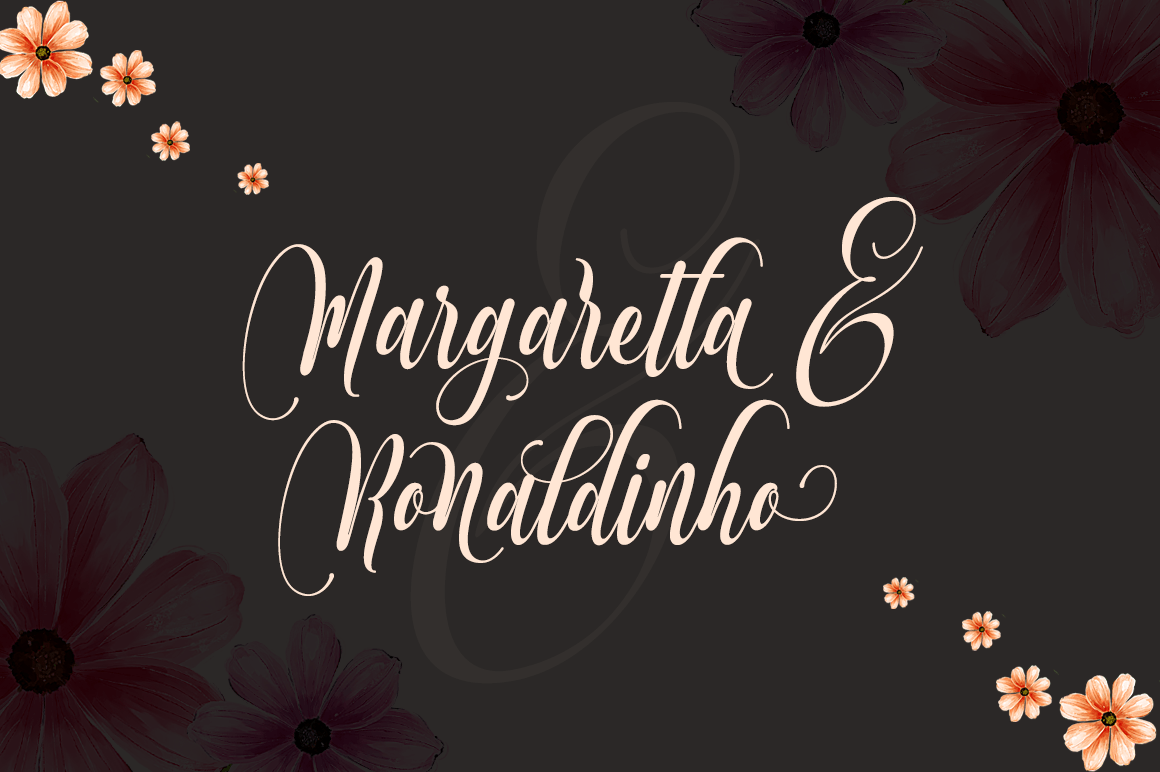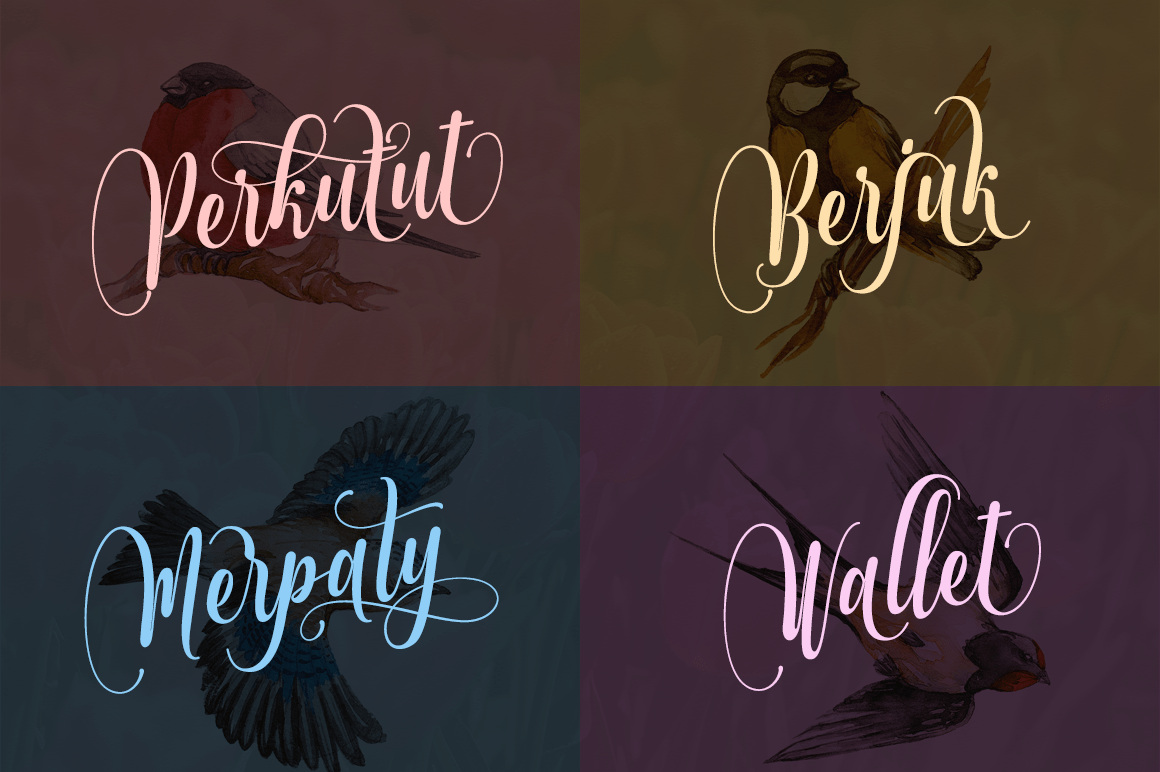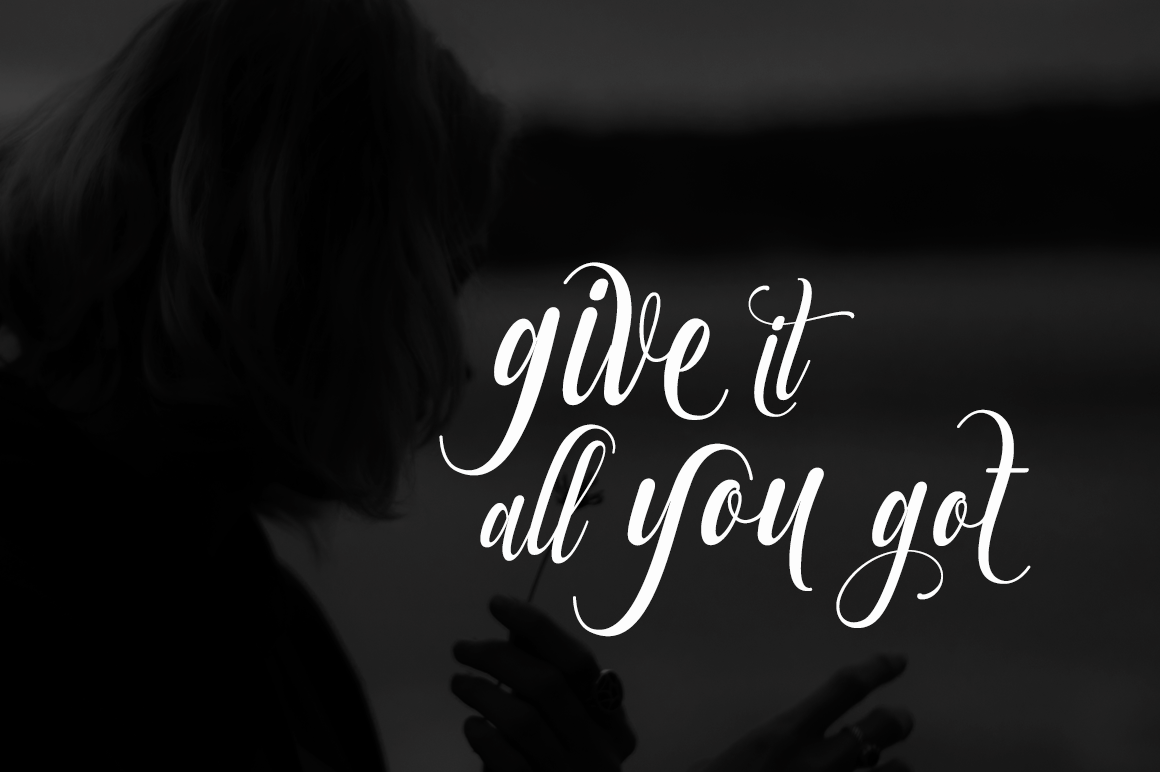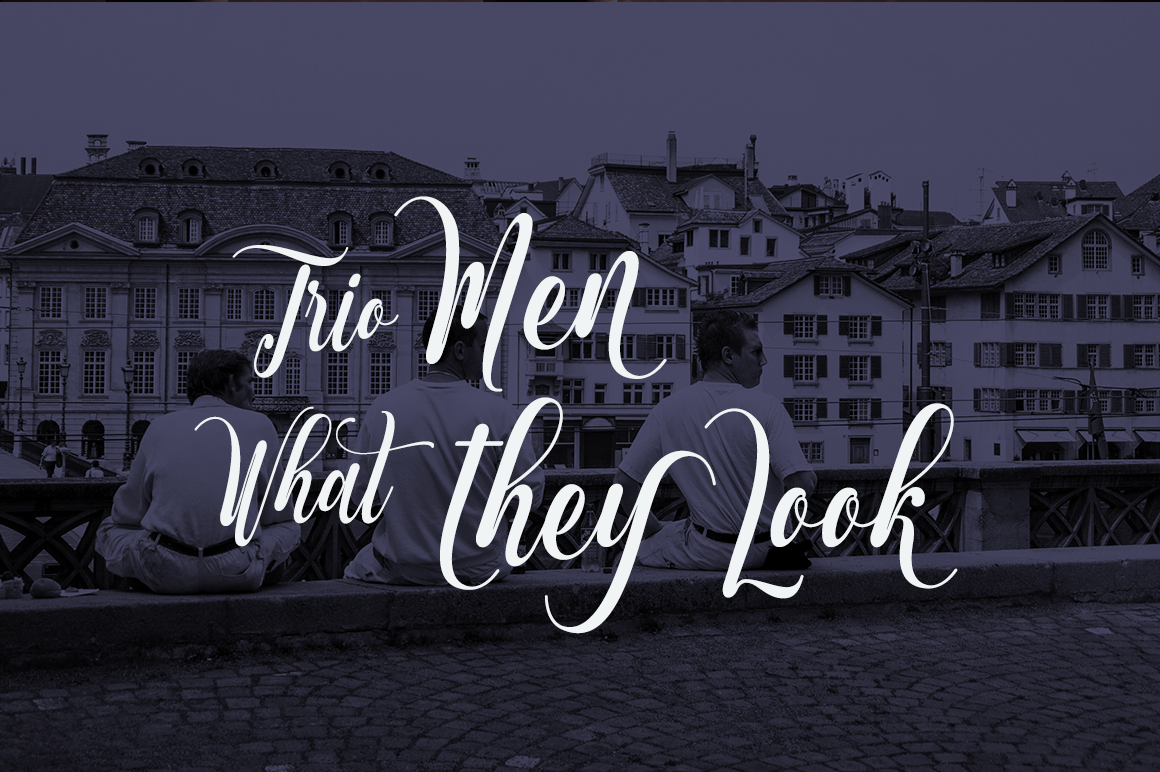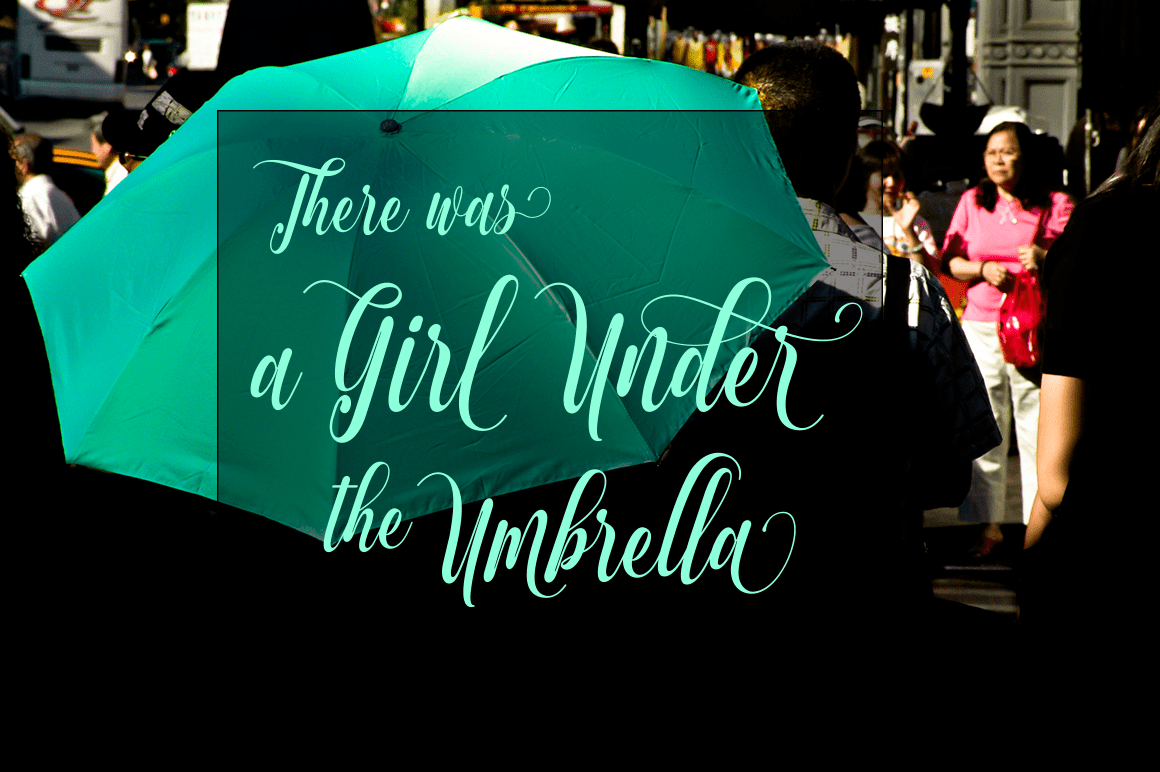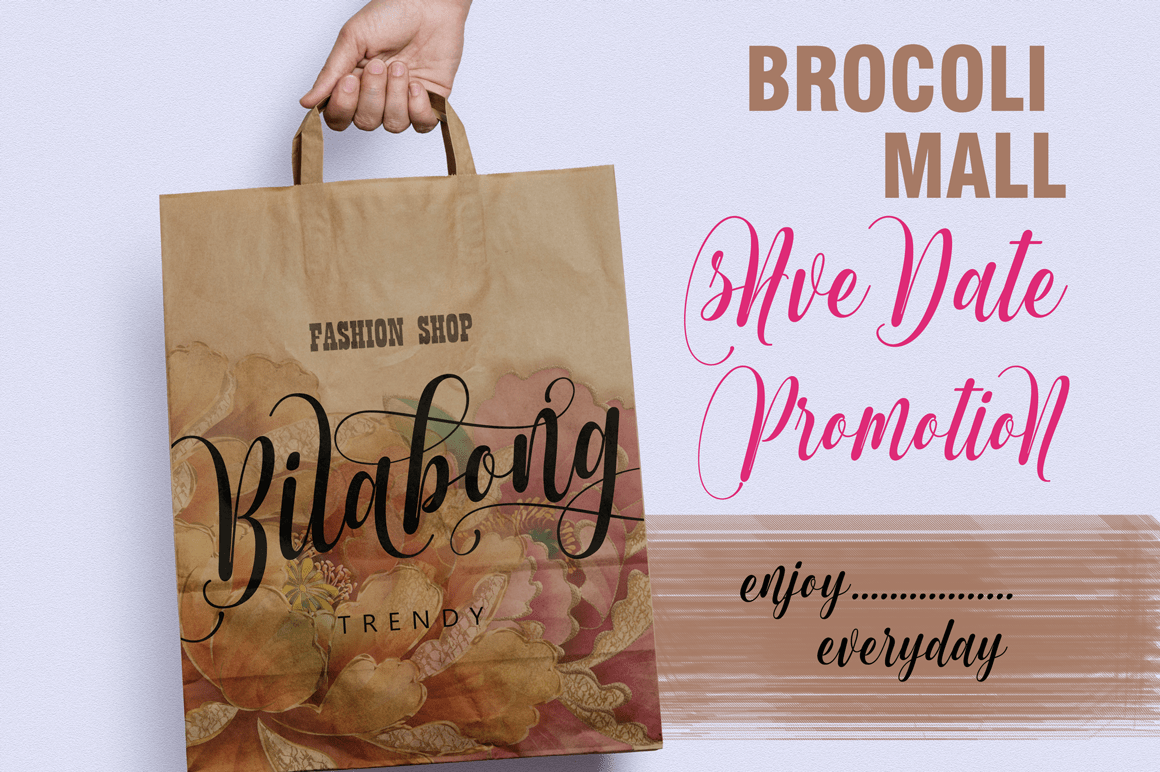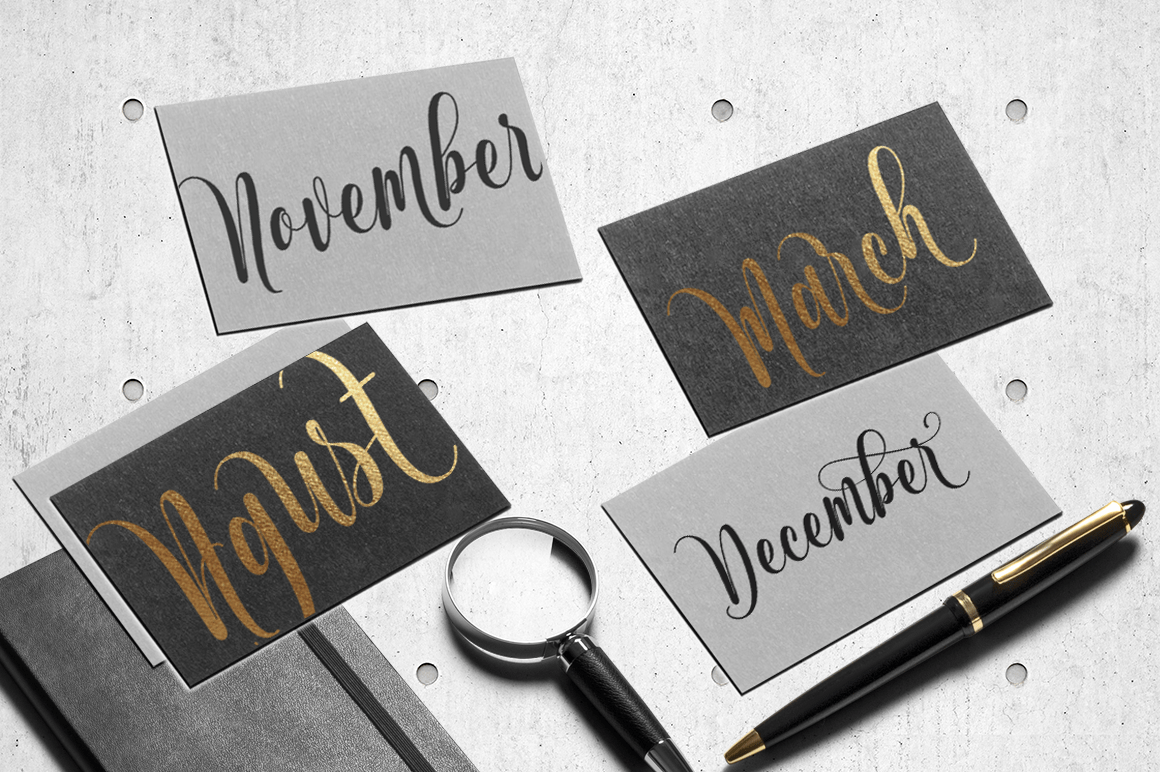
Muthya
Muthya is a font that made the hand by having the character up and down like a dancer. Muthya has a very unique style of calligraphy, it is very suitable for use in the work of modern design.
The Features of this fonts is:
- Standart ligatures
- Discretionary ligatures
- Swash Alternates
- Stylistic Alternates
- Stylistic sets
- Private Unicode Area
Languages supported: Breton, Catalan, Czech, Danish, Estonian,French, German, Hungarian, Icelandic, Italian, Romanian, Scottish Gaelic, Slovak, Latvian, Lithuanian, Norwegian, English, Finnish, Polish, Portuguese, Slovenian, Spanish, Swedish, Turkish, Welsh. Basically, all european languages that are based on latin alphabet
Can be used for various purposes.such as headings, logos, wedding invitation, t-shirt, letterhead, lable, news, posters, badges etc. To enable the OpenType Stylistic alternates, you need a program that supports OpenType features such as Adobe Illustrator CS, Adobe Indesign & CorelDraw X6-X7.a font that made the hand by having the character up and down like a dancer. Freestyle has a very unique style of calligraphy, it is very suitable for use in the work of modern design.